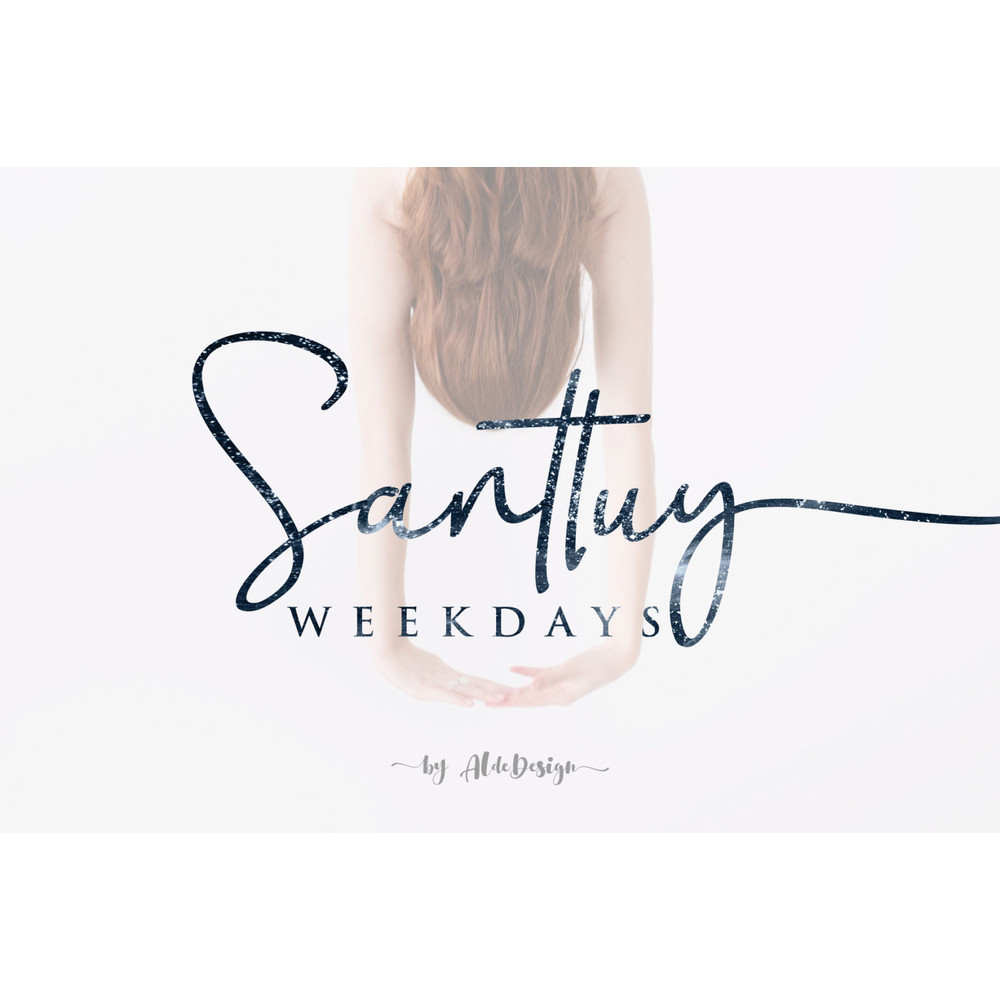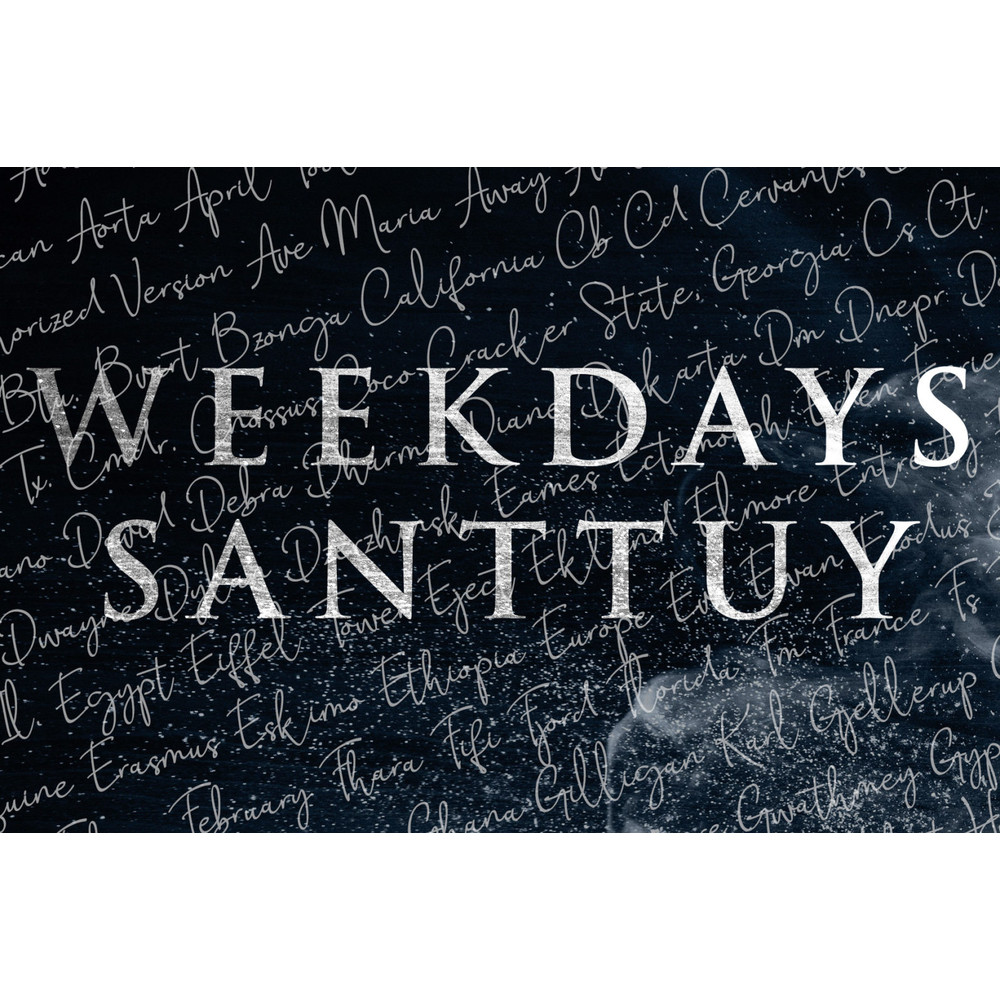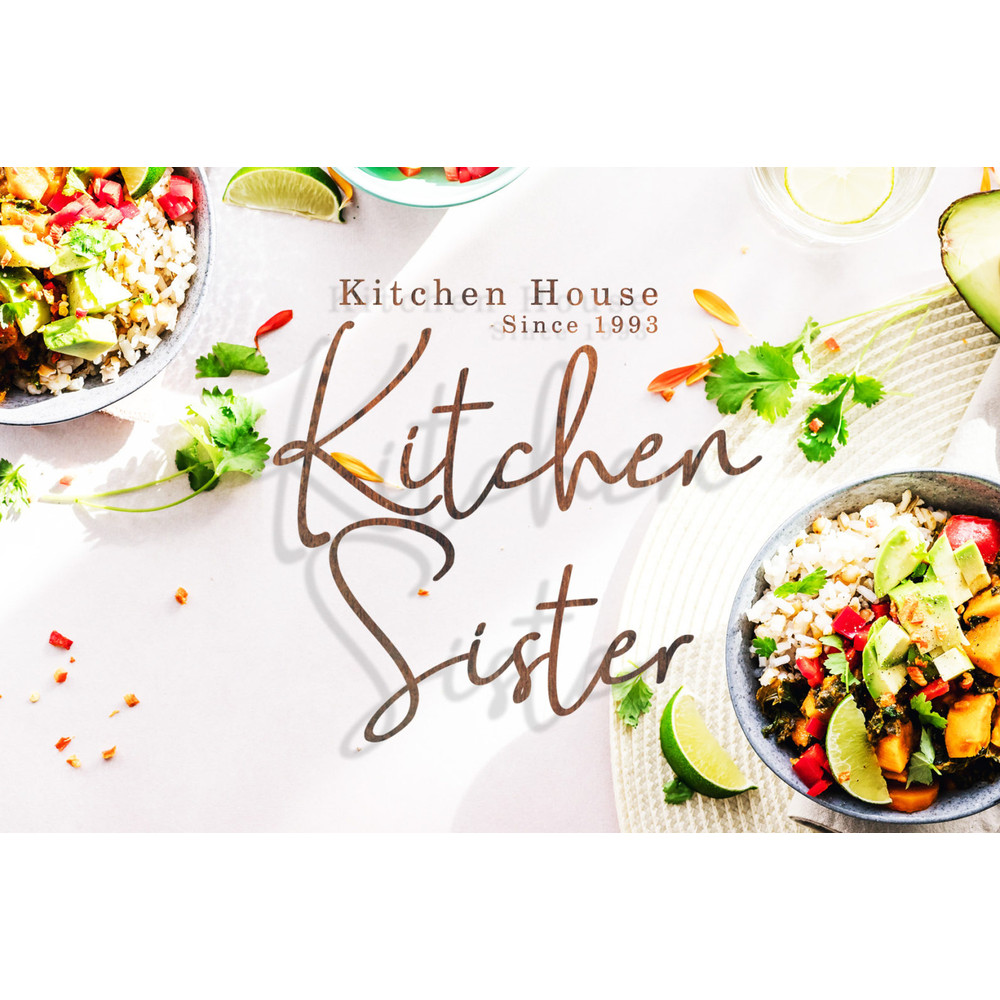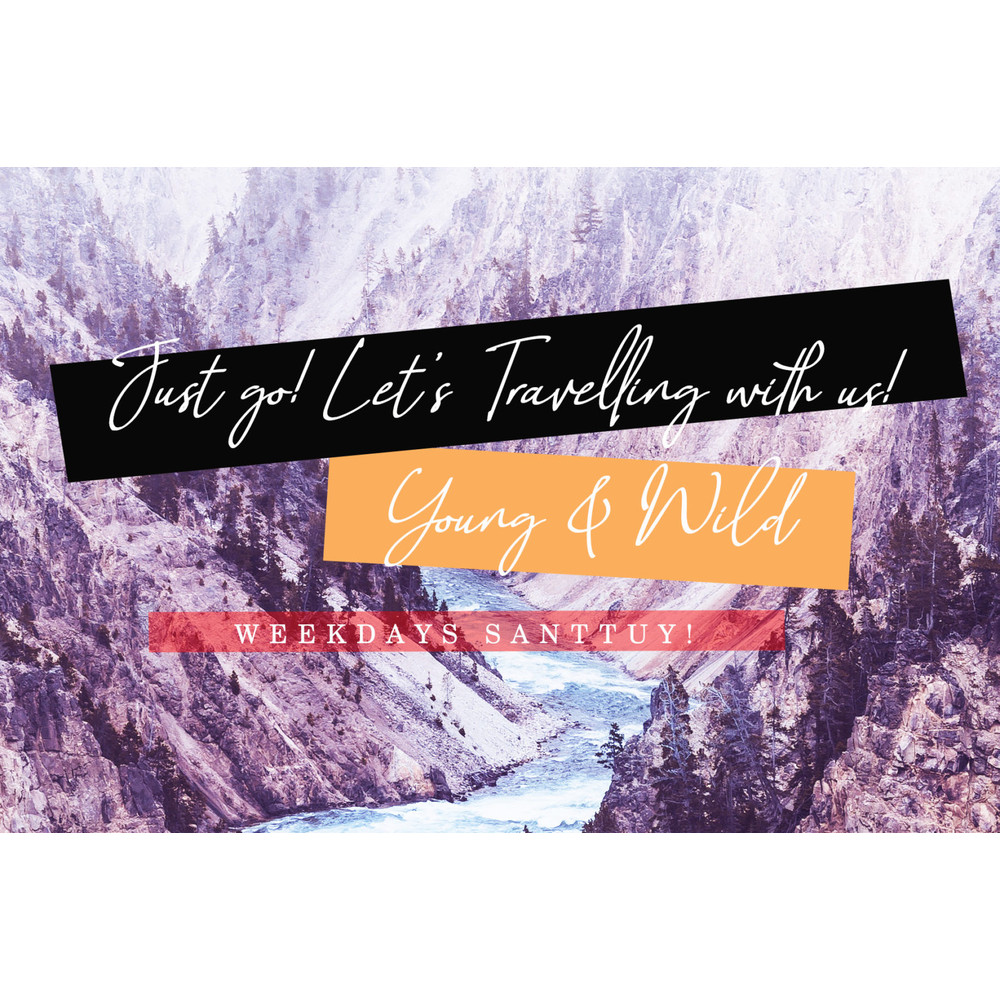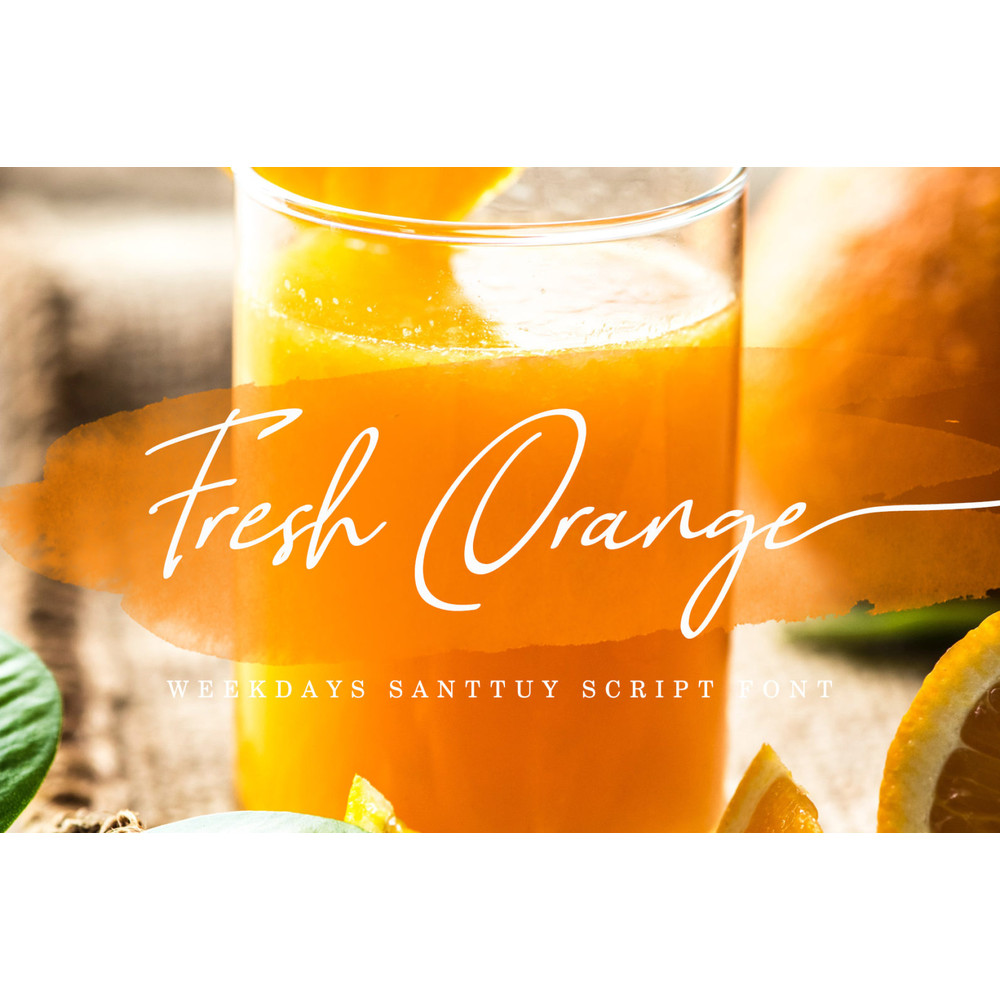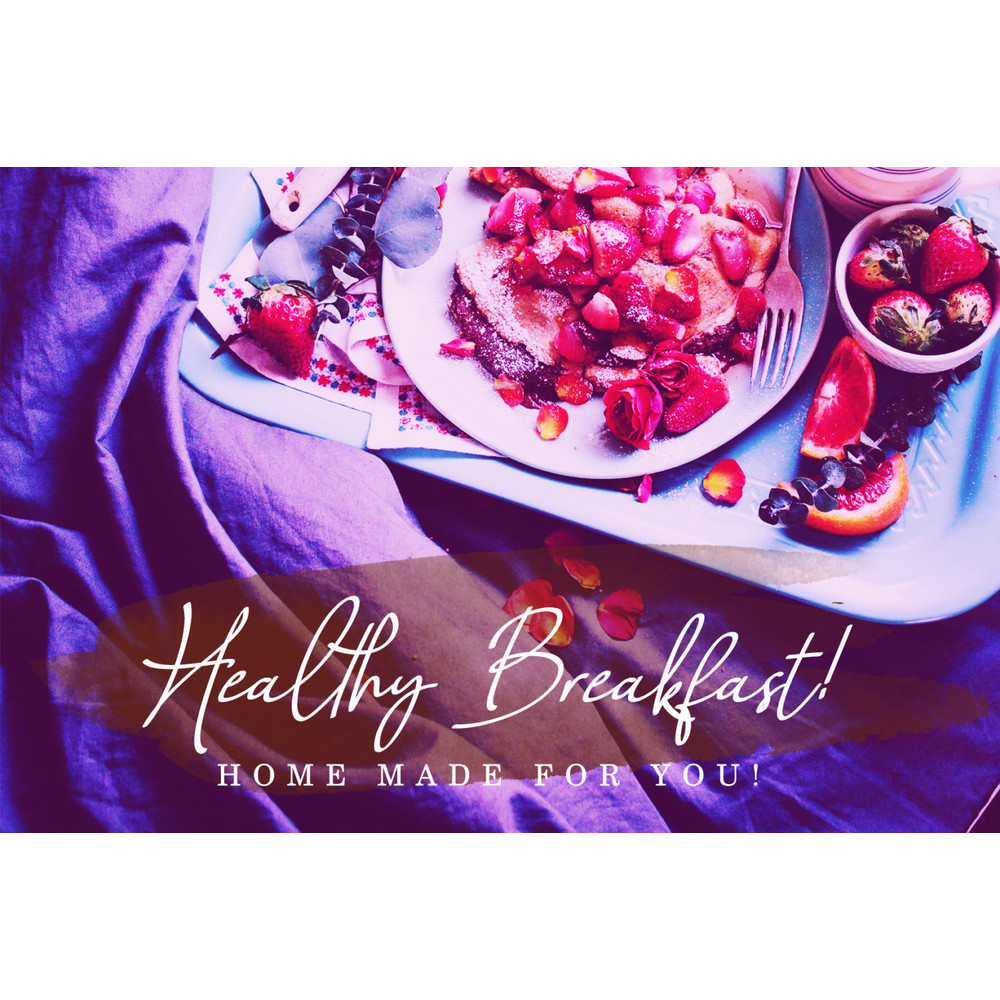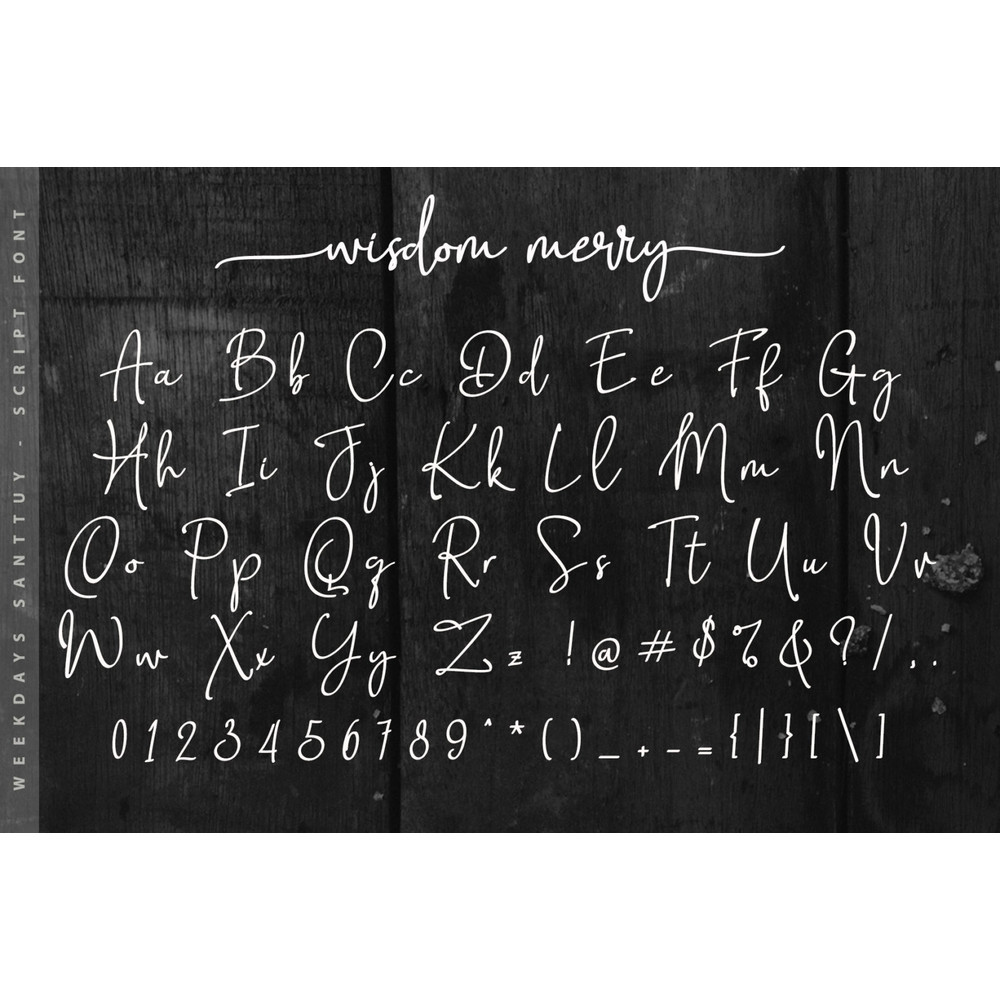
Weekdays Santtuy is a great font for your project! This font made with awesome and classy taste comes with a natural touch, so much ligatures & alternates. We keep this font looks classy, readable, elegant, stylish, catchy, and absolutely easy to use.
Weekdays Santtuy is the great choice for the watermark on branding, design, wedding, photography, signature, logo design, album cover, business card, quotes, and many other design projects.
Weekdays Santtuy is a great font for your project! This font made with awesome and classy taste comes with a natural touch, so much ligatures & alternates. We keep this font looks classy, readable, elegant, stylish, catchy, and absolutely easy to use.
Weekdays Santtuy is the great choice for the watermark on branding, design, wedding, photography, signature, logo design, album cover, business card, quotes, and many other design projects.
Weekdays Santtuy is a great font for your project! This font made with awesome and classy taste comes with a natural touch, so much ligatures & alternates. We keep this font looks classy, readable, elegant, stylish, catchy, and absolutely easy to use.
Weekdays Santtuy is the great choice for the watermark on branding, design, wedding, photography, signature, logo design, album cover, business card, quotes, and many other design projects.
Weekdays Santtuy is a great font for your project! This font made with awesome and classy taste comes with a natural touch, so much ligatures & alternates. We keep this font looks classy, readable, elegant, stylish, catchy, and absolutely easy to use.
Weekdays Santtuy is the great choice for the watermark on branding, design, wedding, photography, signature, logo design, album cover, business card, quotes, and many other design projects.